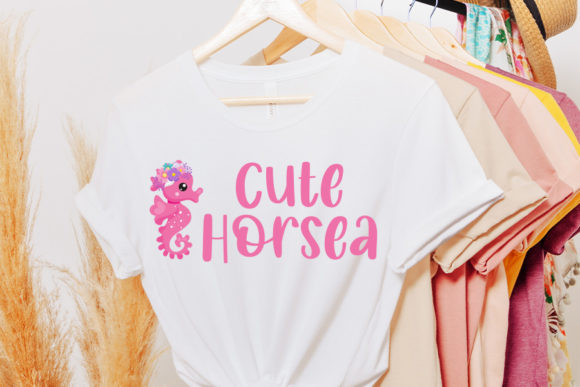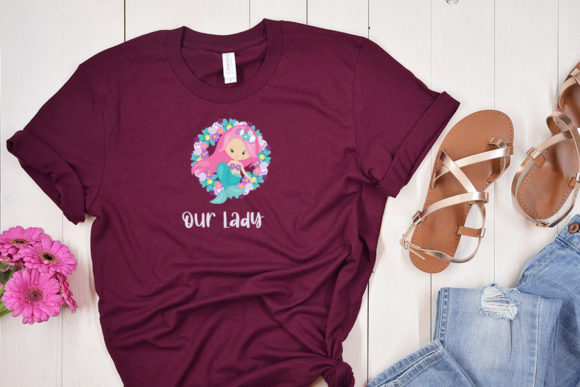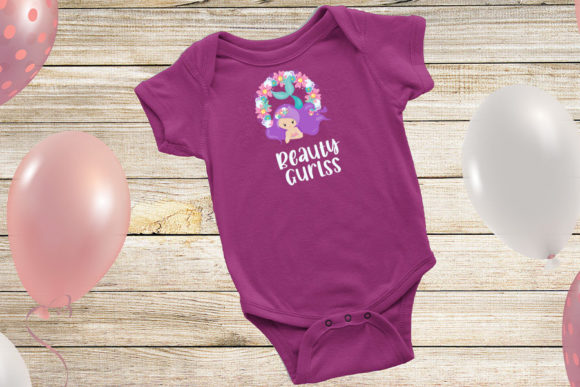
Introduction to Mermaid Smile Font
Have you ever stared at a blank page, trying to spark creativity for a design project, only to find yourself lost in a sea of possibilities? This is where the perfect design resource can make all the difference. For designers looking to add a touch of whimsy to their creations, the Mermaid Smile Font is a game-changer.
This quirky and laid-back display font is more than just a pretty face – it’s a versatile tool that can elevate any design project. With its unique charm, the Mermaid Smile Font is perfect for designers seeking a high-quality font that can add a touch of personality to their work.
About the Mermaid Smile Font
Available for free download, the Mermaid Smile Font features a transparent background, making it easy to layer and manipulate for a range of creative applications. Whether you’re working on a personal project or a commercial design, this font is sure to become a valuable asset in your design library.
Key Features of Mermaid Smile Font
- High-quality, hand-drawn design perfect for creative projects, with a unique and playful style.
- Perfect for use in digital design, print media, and web development projects, adding a touch of whimsy and personality to any creative endeavor.
Honest Review: Mermaid Smile Font
I recently stumbled upon the Mermaid Smile Font while searching for a unique design resource for a creative project. I must say, it’s a lovely find!
- ✨ The Mermaid Smile Font has a whimsical and playful feel to it, making it perfect for illustrations, children’s books, and other fun designs.
- ✨ The font comes in a range of styles, including bold and italic, which adds to its versatility.
- ⚠️ The font doesn’t come with a transparent background, which can make it a bit tricky to use on complex designs.
- ⚠️ The font is only available in a limited range of languages, which might be a problem for designers working on projects that require multilingual support.
Overall, I think the Mermaid Smile Font is a great addition to any designer’s toolkit. It’s a high-quality font that can add a touch of magic to any creative project. While it may have some limitations, I think the benefits far outweigh the drawbacks.
The Mermaid Smile Font is perfect for creative projects that require a playful and whimsical touch.
Use it for social media graphics, posters, flyers, and other design materials that need a touch of personality.